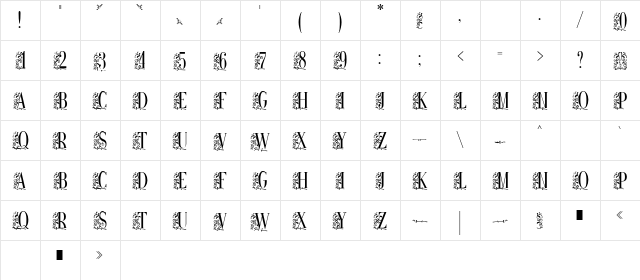
Complete RemesloSTD Regular glyph index. Displaying only characters natively supported by RemesloSTD Regular font.
RemesloSTD is a composed and adaptable typeface that performs quietly and consistently across a wide range of design contexts.